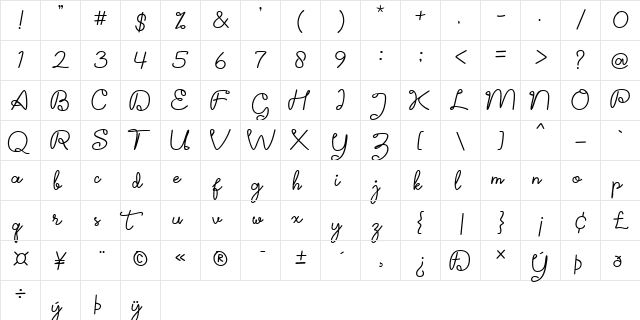
Hello I'am Coming (version 2) Regular
| Designer | Alifinart |
Design Context for Hello I'am Coming (version 2) Typeface
Hello I'am Coming (version 2) is a composed and adaptable typeface that performs quietly and consistently across a wide range of design contexts.